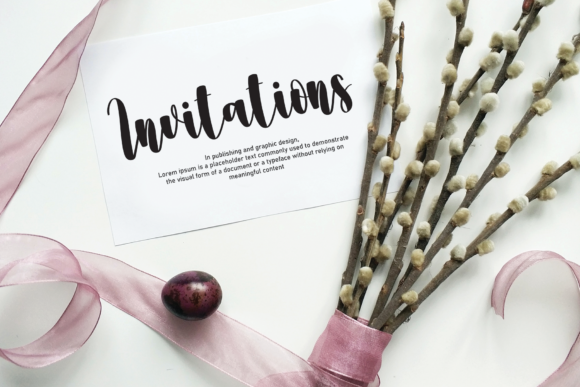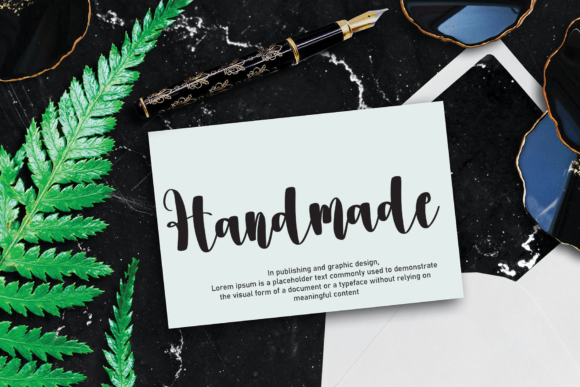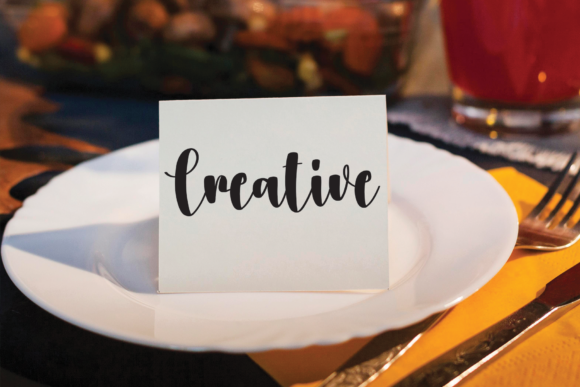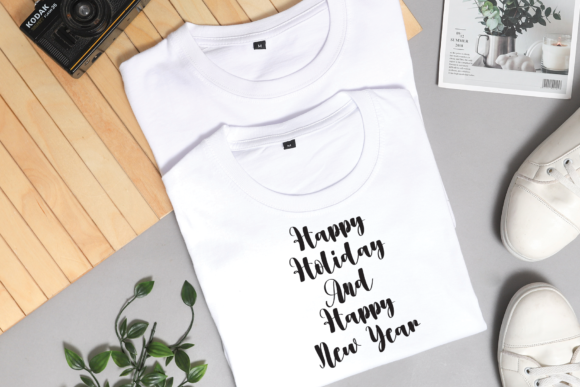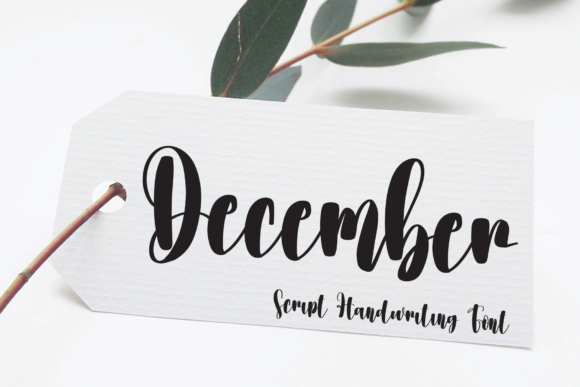
Introducing December Font: The Perfect Script Handwriting Font for Your Creative Projects
Are you a designer or crafter looking for a beautiful and elegant font to add a personal touch to your creative projects? Look no further than December Font, a stunning script handwriting font that is sure to impress. With its flowing curves and sophisticated style, December Font is perfect for a wide range of applications, from wedding invitations and greeting cards to logos, posters, labels, t-shirt designs, and more!
What Makes December Font So Special?
December Font is a script handwriting font that boasts a unique and elegant style, making it perfect for adding a touch of sophistication to any design project. Its beautiful, flowing curves and intricate details make it a standout font that is sure to capture attention. Whether you’re designing a wedding invitation, a logo, or a poster, December Font is the perfect choice for adding a personal and elegant touch.
Uses for December Font
December Font is an incredibly versatile font that can be used for a wide range of creative projects, including:
- Wedding invitations: Add a touch of elegance and sophistication to your wedding invitations with December Font.
- Greeting cards: Create beautiful and heartfelt greeting cards for any occasion with December Font.
- Logos: Use December Font to create a unique and memorable logo for your business or brand.
- Posters: Add a touch of style and sophistication to your posters with December Font.
- Labels: Create beautiful and eye-catching labels for your products or packaging with December Font.
- T-shirt designs: Use December Font to create unique and stylish t-shirt designs.
- Business cards: Add a touch of elegance and sophistication to your business cards with December Font.
Why Choose December Font?
There are many reasons why December Font is the perfect choice for your creative projects. Here are just a few:
- Unique and elegant style: December Font boasts a unique and elegant style that is sure to impress.
- Versatile: December Font can be used for a wide range of creative projects, from wedding invitations to logos and posters.
- High-quality: December Font is a high-quality font that is designed to produce crisp and clear results.
Tips for Using December Font
Here are a few tips for using December Font in your creative projects:
- Use it sparingly: December Font is a bold and elegant font, so use it sparingly to add emphasis and style to your designs.
- Pair it with other fonts: December Font pairs well with other fonts, so don’t be afraid to experiment with different combinations.
- Experiment with different sizes: December Font looks great in a variety of sizes, so experiment with different sizes to find the one that works best for your design.